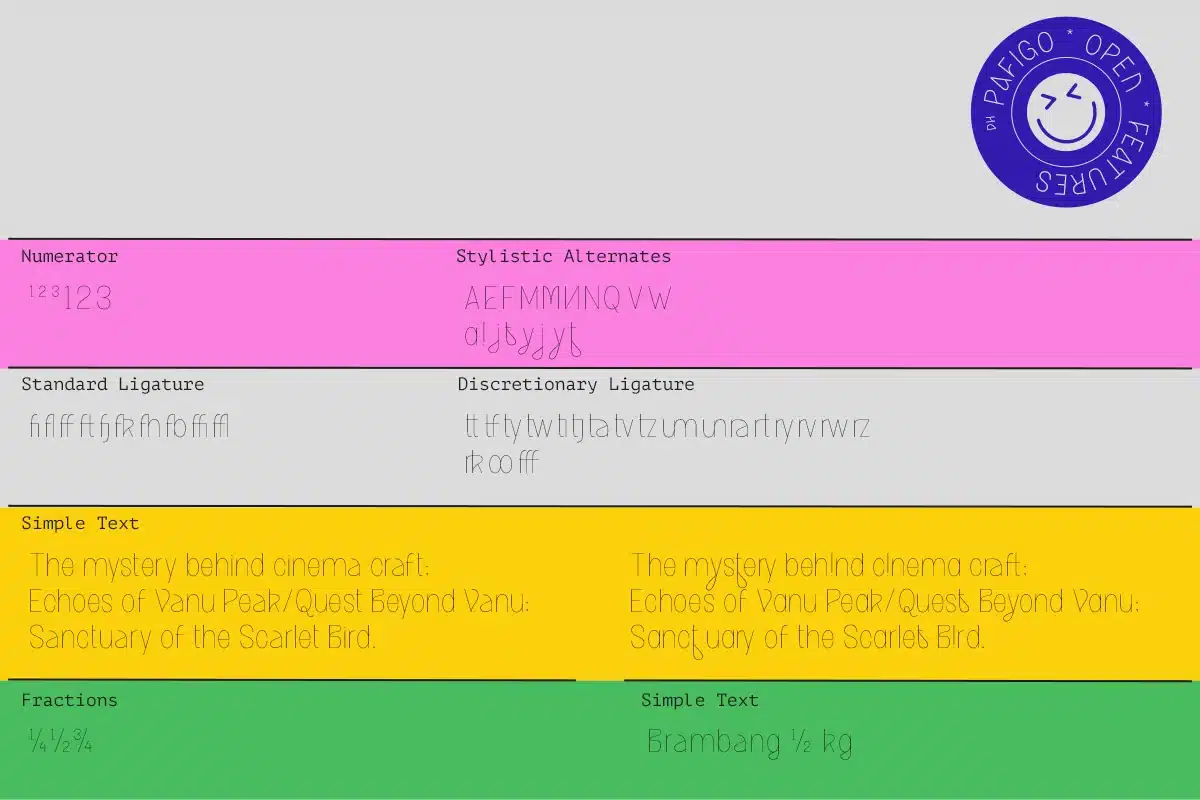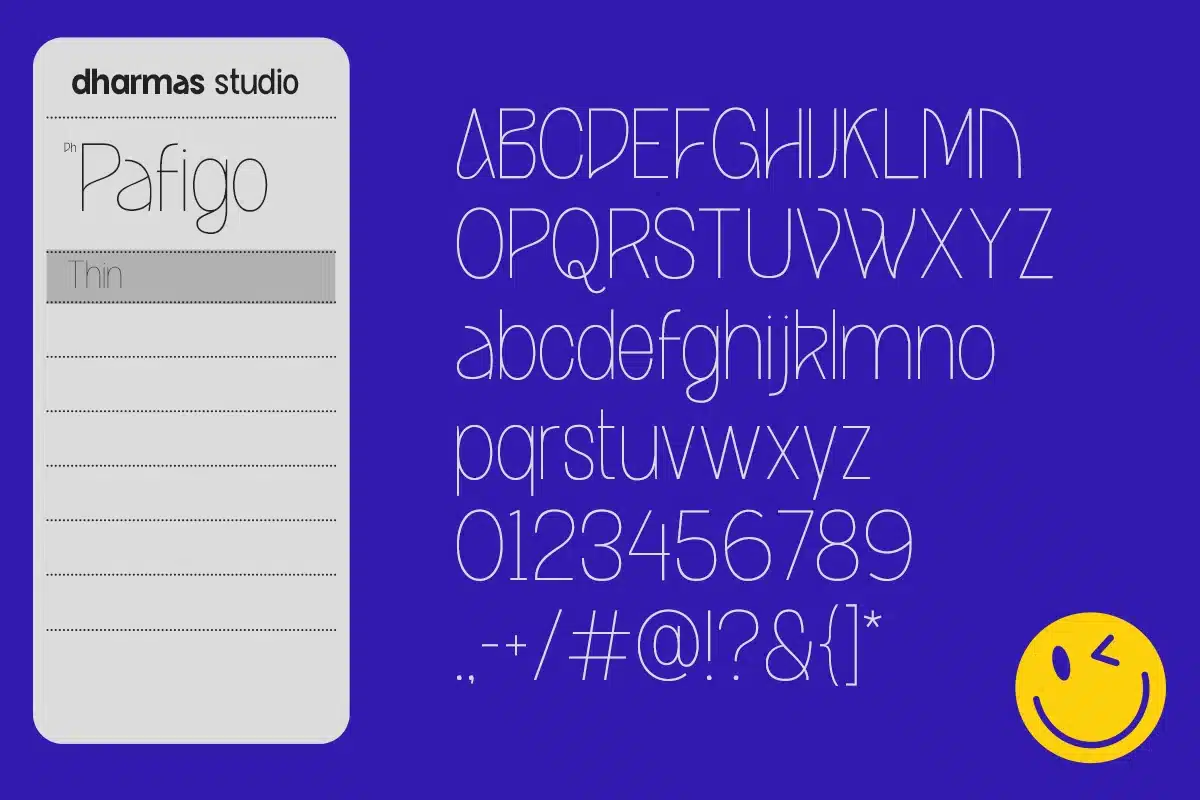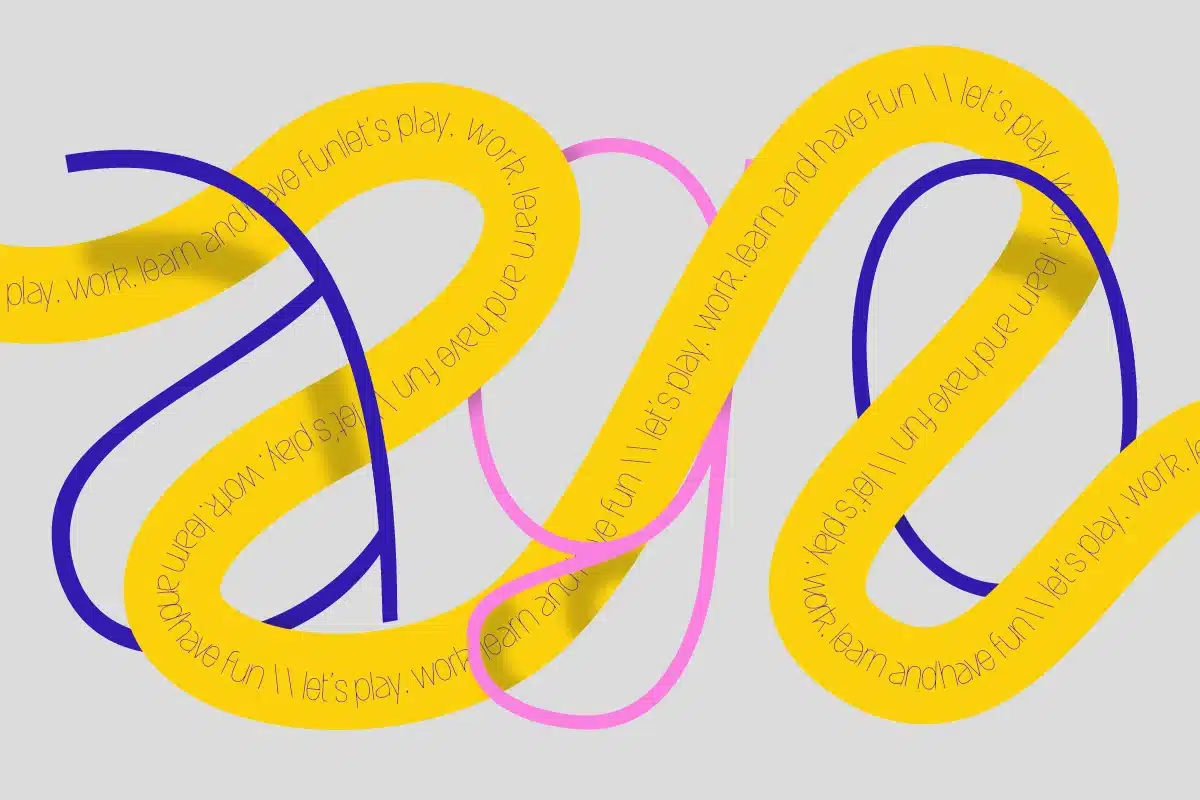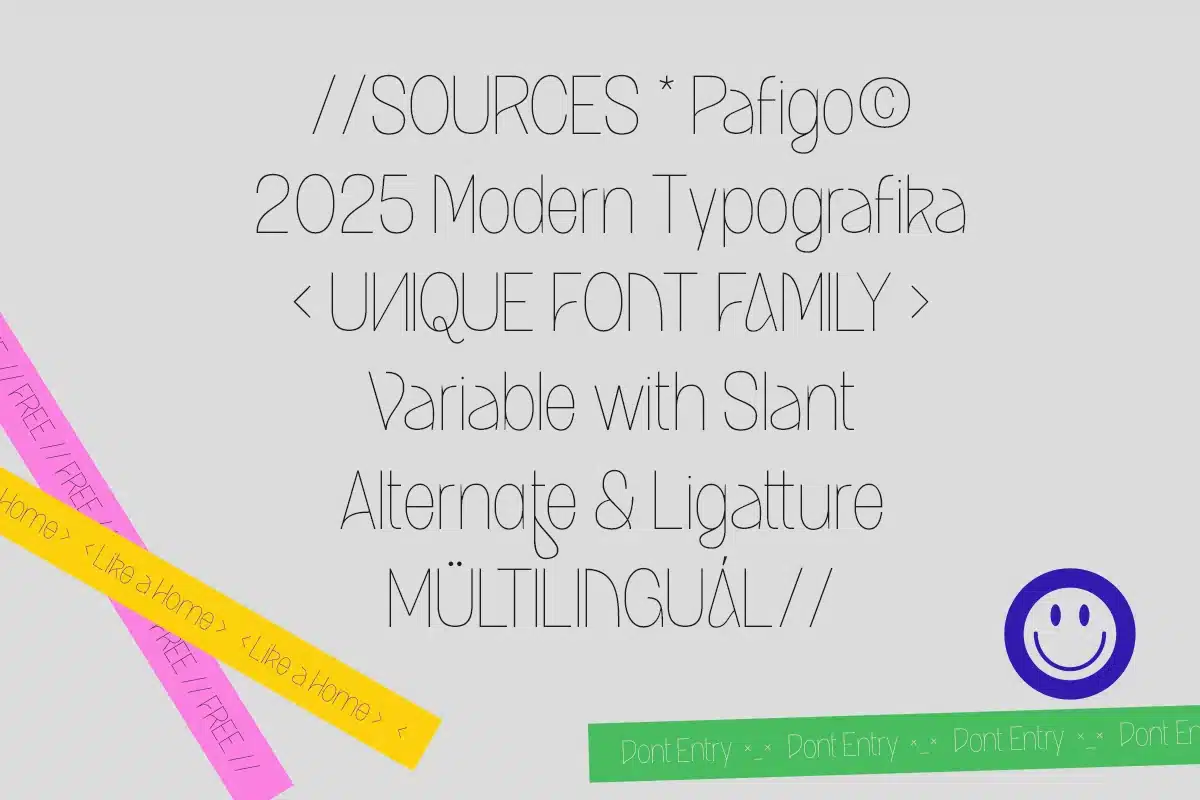
Pafigo – Clean Modern Logo Font
Pafigo – Modern Logo Font (Thin)
Pafigo is a modern sans serif typeface with a clean, rounded design that blends geometric structure with a friendly tone—perfect for sleek logos, minimalist branding, and stylish editorial layouts. This Thin version offers a refined, lightweight look that adds sophistication and clarity to your designs.
Carefully crafted to balance professionalism and personality, Pafigo Thin is ideal for brands that want to feel confident, modern, and approachable.
With OpenType features, Canva compatibility, and multilingual support, it’s a go-to logo font for creatives who value both versatility and visual impact.
Font Features:
- Single Style Included: Thin
- 48+ Alternates & Ligatures: Creative flexibility
- OpenType Features: Advanced typographic control
- Multilingual Support: Wide language coverage
Multilingual Characters:
Afrikaans, Albanian, Asu, Basque, Bemba, Bena, Breton, Chiga, Cornish, Dutch, English, Estonian, Filipino, Finnish, Friulian, Galician, German, Gusii, Indonesian, Irish, Italian, Kabuverdianu, Kalenjin, Kinyarwanda, Luo, Luxembourgish, Luyia, Machame, Makhuwa-Meetto, Makonde, Malagasy, Manx, Morisyen, North Ndebele, Nyankole, Oromo, Portuguese, Quechua, Romansh, Rombo, Rundi, Rwa, Samburu, Sango, Sangu, Scottish Gaelic, Sena, Shambala, Shona, Soga, Somali, Spanish, Swahili, Swedish, Swiss.